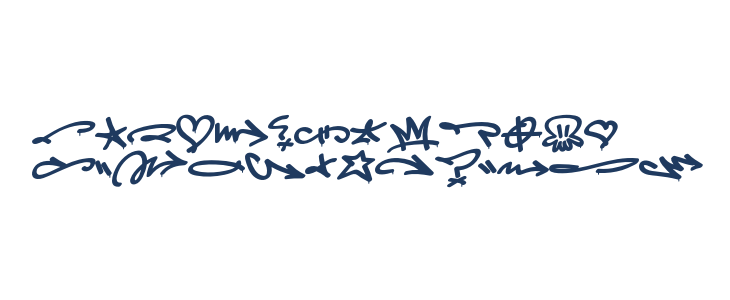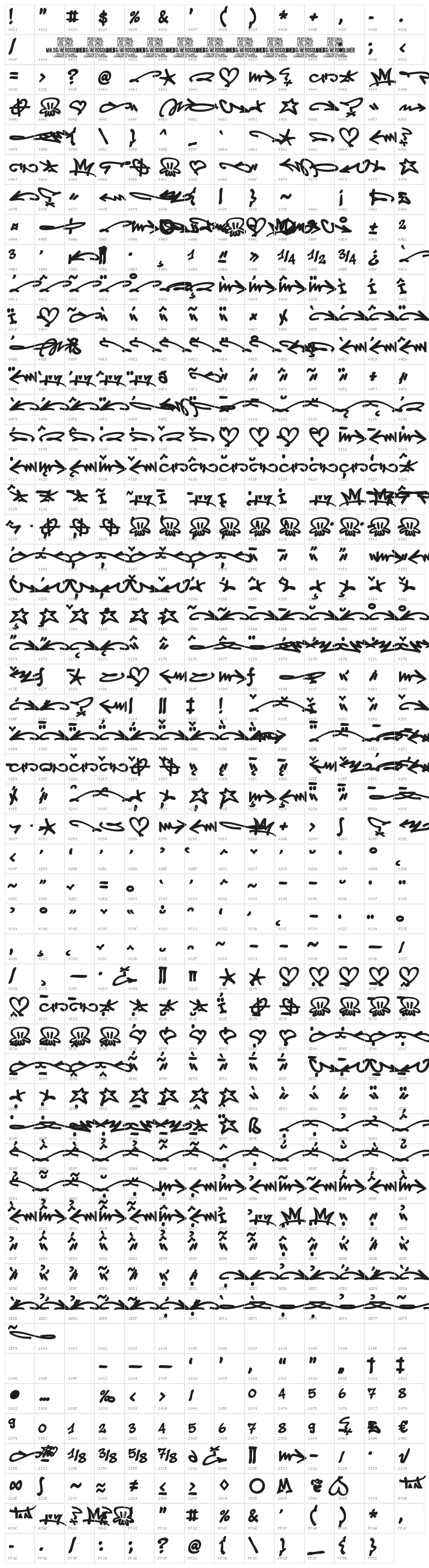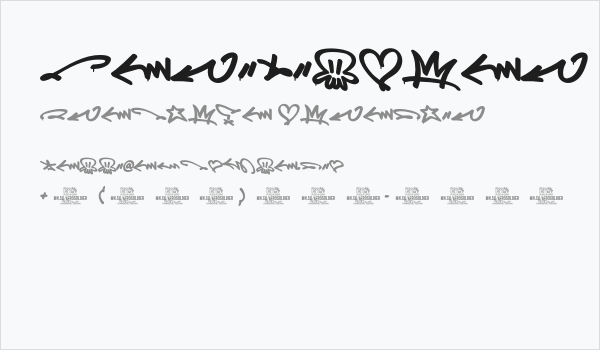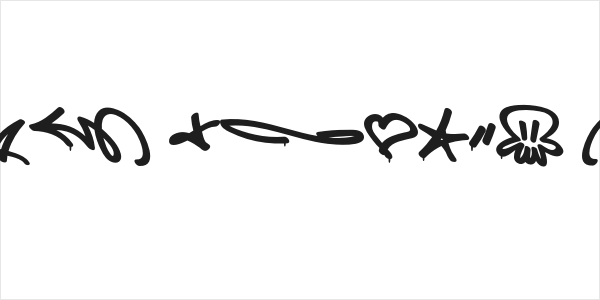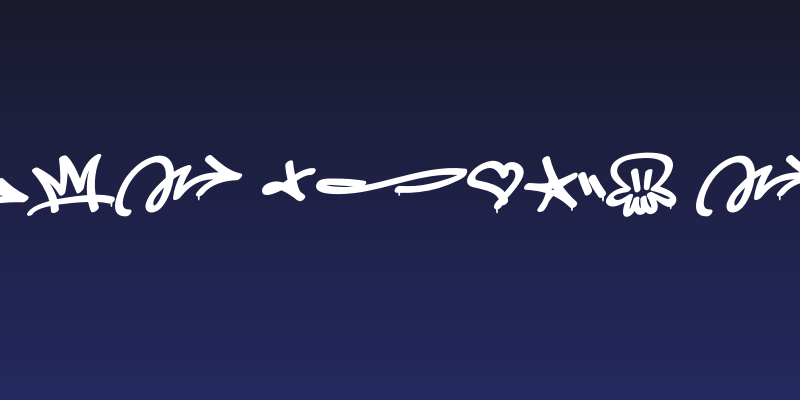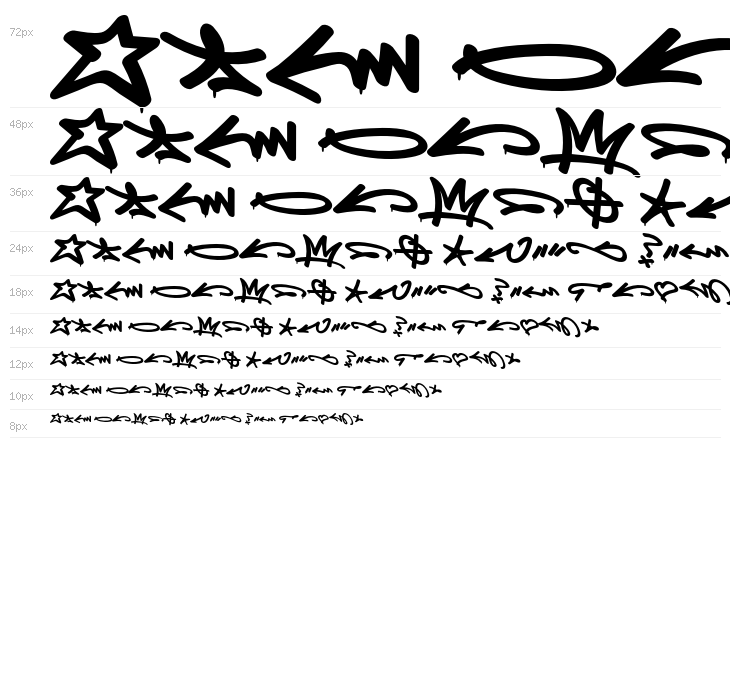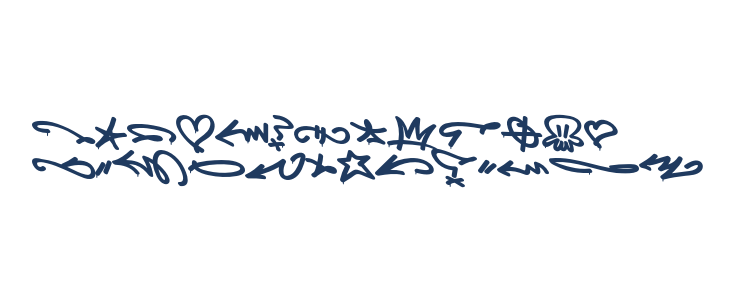
Aerosoldier Drip Symbol PERSO Regular Font
Aerosoldier Drip Symbol PERSO Regular Description
A highly decorative, graffiti-inspired symbol font featuring bold, hand-drawn shapes such as arrows, hearts, stars, and abstract forms. The characters are thick, irregular, and expressive, with a playful and urban aesthetic.
| Overall Style | Decorative, Urban, Graffiti |
| Use Case | Logos, Headlines, Decorative elements |
| Proposed Projects | Street art posters, event flyers, album covers, urban branding, decorative borders. |